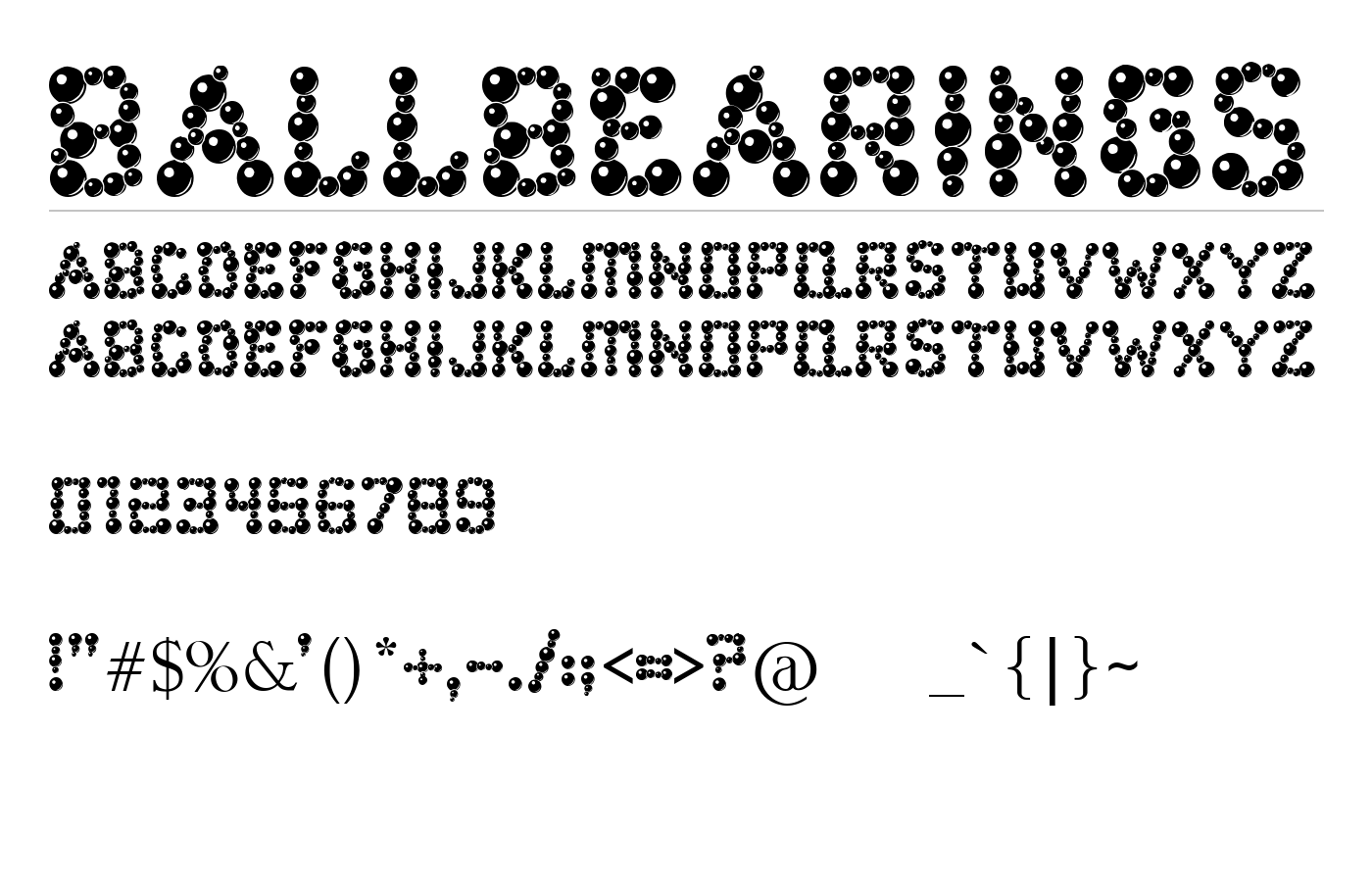
Ballbearings is a playful and highly decorative display font composed of bold, circular shapes that mimic the appearance of ball bearings. Its unique structure and solid black dots create a fun, industrial-inspired aesthetic that is best suited for eye-catching headlines, logos, and creative branding projects where a quirky and distinctive style is desired. This font stands out with its unconventional design, making it ideal for designs needing a modern, energetic feel infused with a mechanical vibe.
ballbearings Font